Modern serif fonts for luxury branding have become one of the most powerful tools for creating premium visual identities
Typography usually speaks before your copy does.
Long before someone reads your tagline, explores your website, or clicks your shop button, they're already forming an impression based on your visual identity. In luxury branding especially, type choice carries a surprising amount of weight. The right serif font can make a brand feel refined, established, and premium within seconds.
It's one reason modern serif fonts continue to dominate luxury industries. Fashion labels, skincare companies, boutique hotels, jewelry brands, and personal brands all lean heavily on elegant serif typography because it balances timeless sophistication with a contemporary feel.
But not every serif font automatically looks luxurious.
Some feel too traditional. Others become difficult to read once scaled down for packaging or social media. The best luxury serif fonts manage to look distinctive without sacrificing legibility.
This collection features 25 modern serif fonts that stand out for branding, logo design, editorial work, and premium marketing materials.
- Best fashion-editorial option: Vogue
- Best clean beauty option: Evorine Serif
- Best approachable premium option: The Paloma
- Best high-impact luxury option: Tuscany Shade
- Best multi-project collection: Luxury Editorial Bundle
How I Picked These
I compared these serif fonts by logo readability, stroke contrast, spacing, small-size performance, editorial presence, scalability, pairing flexibility, and how well each option can support real luxury touchpoints such as packaging, websites, social graphics, labels, lookbooks, and printed brand materials.
1. Marquis
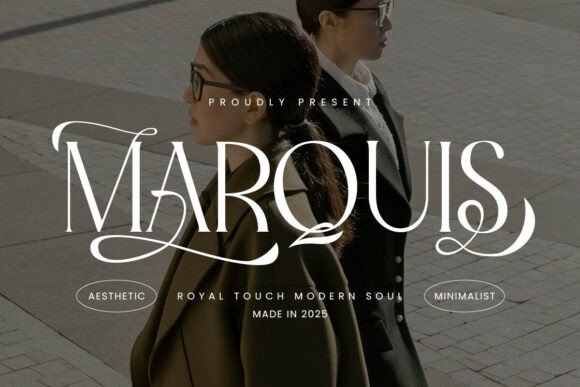
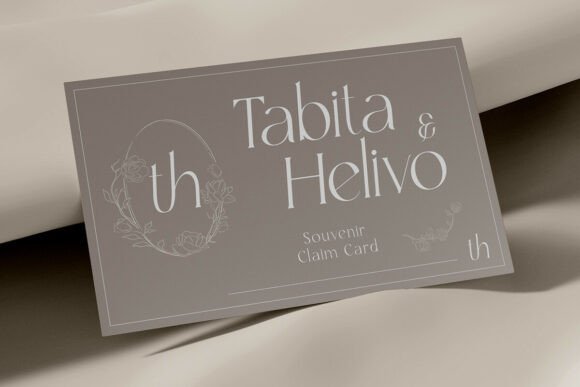
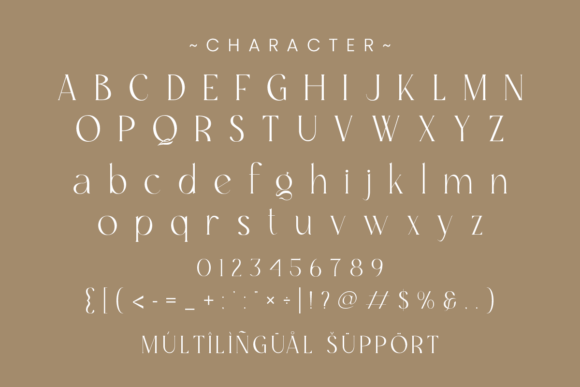
Marquis immediately feels high-end.
The elegant contrast between thick and thin strokes gives it the kind of editorial presence often associated with luxury magazines. It performs especially well in logo lockups and packaging where you want a polished, fashion-forward look.
One thing worth noting: Marquis shines at medium and large sizes. It works beautifully on product boxes, website headers, and hero banners.
Best for: Fashion brands, luxury packaging, editorial design.
2. Evorine Serif
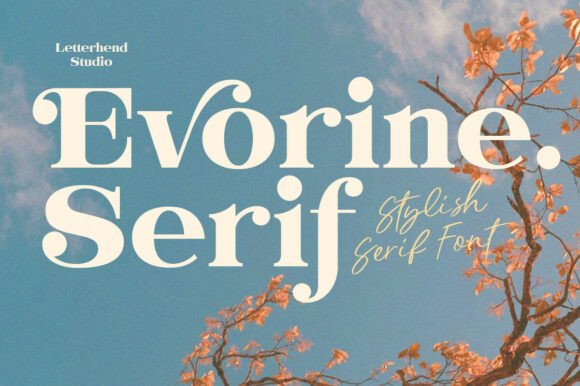
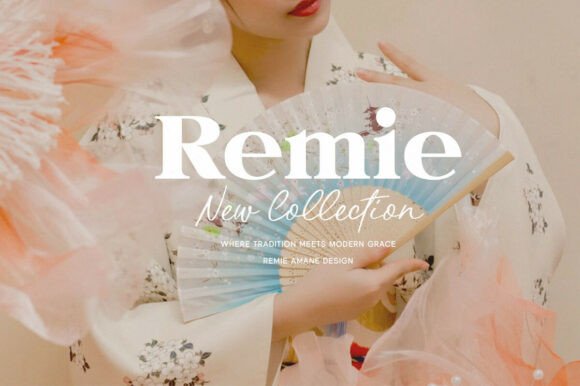
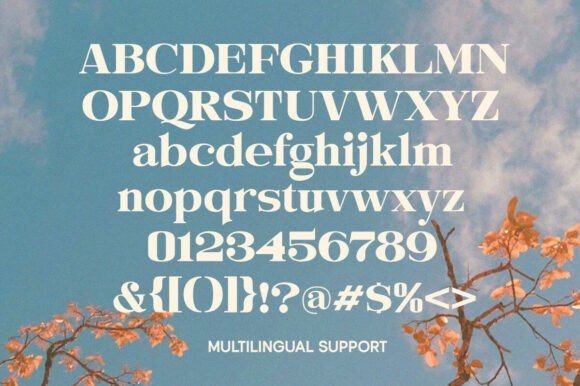
Evorine Serif takes a cleaner, more minimalist approach.
A lot of luxury brands are moving toward simpler visual systems, and this font fits that trend nicely. It feels contemporary without becoming sterile, which makes it particularly useful for lifestyle and beauty brands.
Best for: Beauty brands, lifestyle businesses, personal branding.
3. Vogue
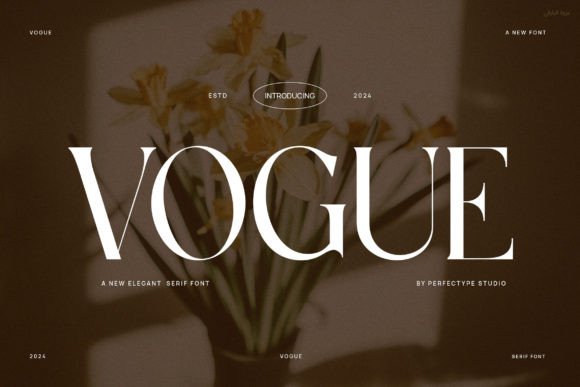
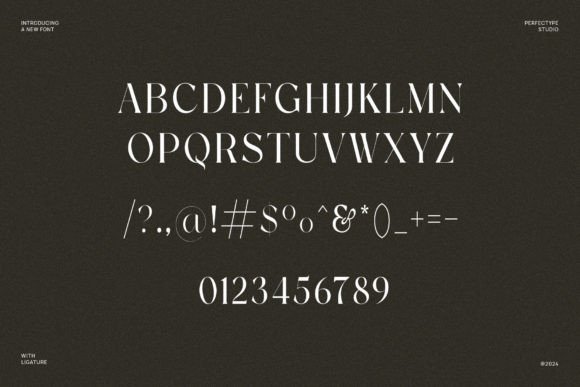
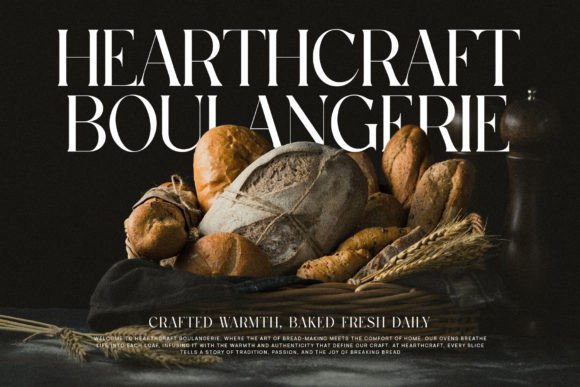
Few fonts communicate fashion quite as quickly as Vogue-inspired typography.
Its tall proportions and refined structure instantly create an editorial atmosphere. This is very much a display typeface, though. Use it for headlines, logos, and campaign graphics rather than long-form text.
Best for: Fashion magazines, clothing brands, luxury websites.
4. Secth Vought
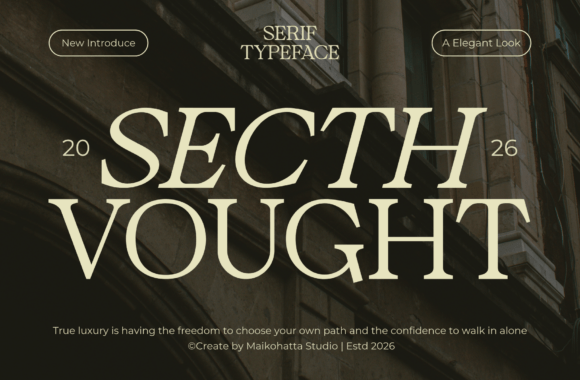
Secth Vought is bold, dramatic, and impossible to ignore.
The strong contrast gives it a premium feel that works exceptionally well for fragrance packaging and luxury campaigns. Brands looking for understated minimalism may find it slightly too expressive, but for statement branding, it's hard to overlook.
Best for: Luxury logos, perfume packaging, premium campaigns.
5. Talento
Talento has a polished editorial character that feels expensive without trying too hard.
The letterforms are elegant, but not overly decorative. That balance makes it surprisingly versatile across branding systems, especially when paired with a clean sans serif.
Best for: Editorial layouts, magazines, luxury branding.
6. Bagielo
Bagielo feels modern and refined.
The clean structure makes it particularly effective on cosmetic labels and skincare packaging, where readability is just as important as aesthetics.
Some luxury fonts become overly stylized. Bagielo stays usable.
Best for: Cosmetic packaging, premium product labels, branding systems.
7. Muzzaro
Muzzaro combines classic serif traditions with contemporary proportions.
It has enough personality to create a recognizable brand identity while remaining timelessโsomething many startups underestimate when choosing typography.
Best for: Boutique businesses, luxury fashion, lifestyle brands.
8. Emerale
Are serif fonts good for logos?
Yes. Many luxury logos use serif typography because it creates a timeless and recognizable brand identity.
What industries commonly use luxury serif fonts?
Fashion, beauty, jewelry, boutique hospitality, wedding businesses, and premium personal brands frequently use luxury serif fonts.